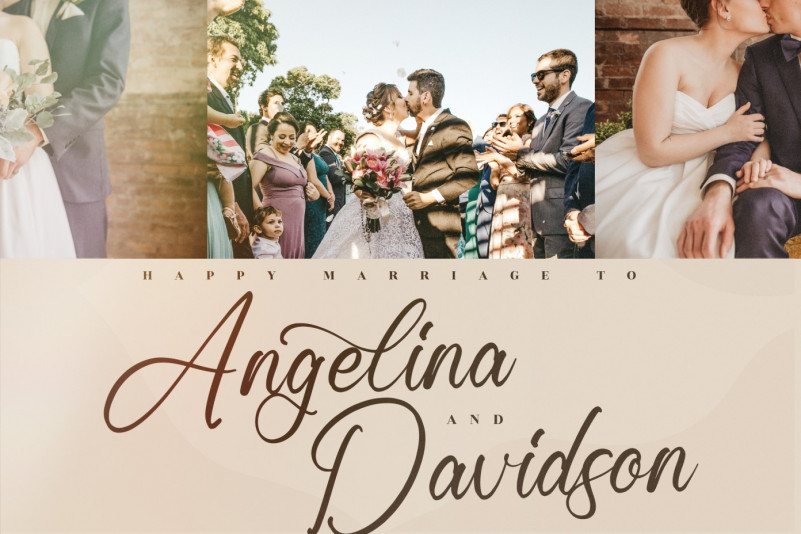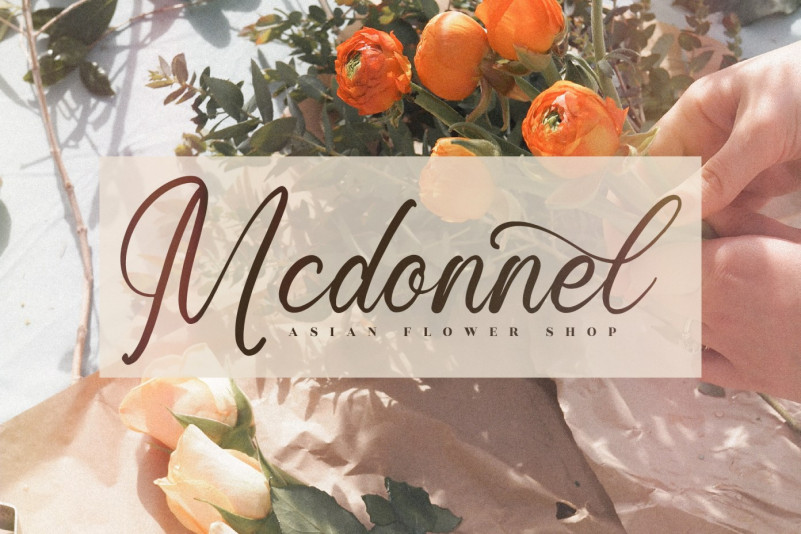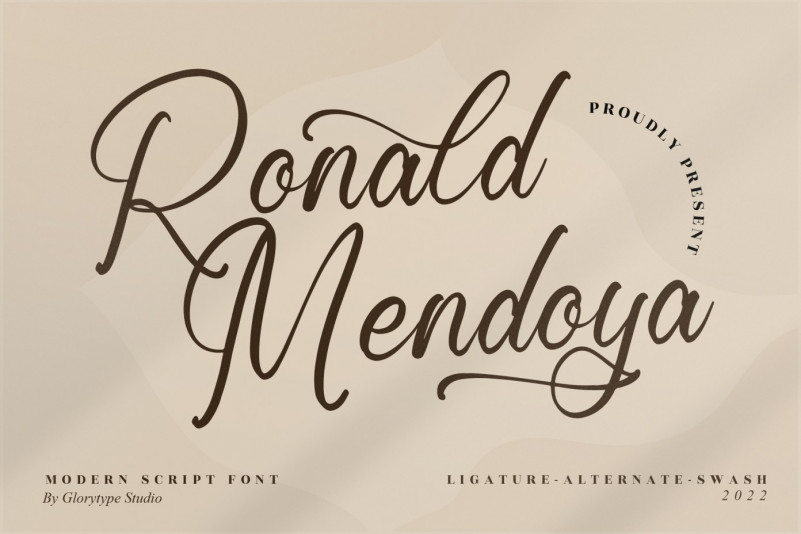
Ronald Mendoya Font
Ronald Mendoya is a vintage and mystical script font. It has a whimsical style and it will undoubtedly immerse your designs into a magical world. This font is PUA encoded which means you can access all glyphs and swashes with ease!